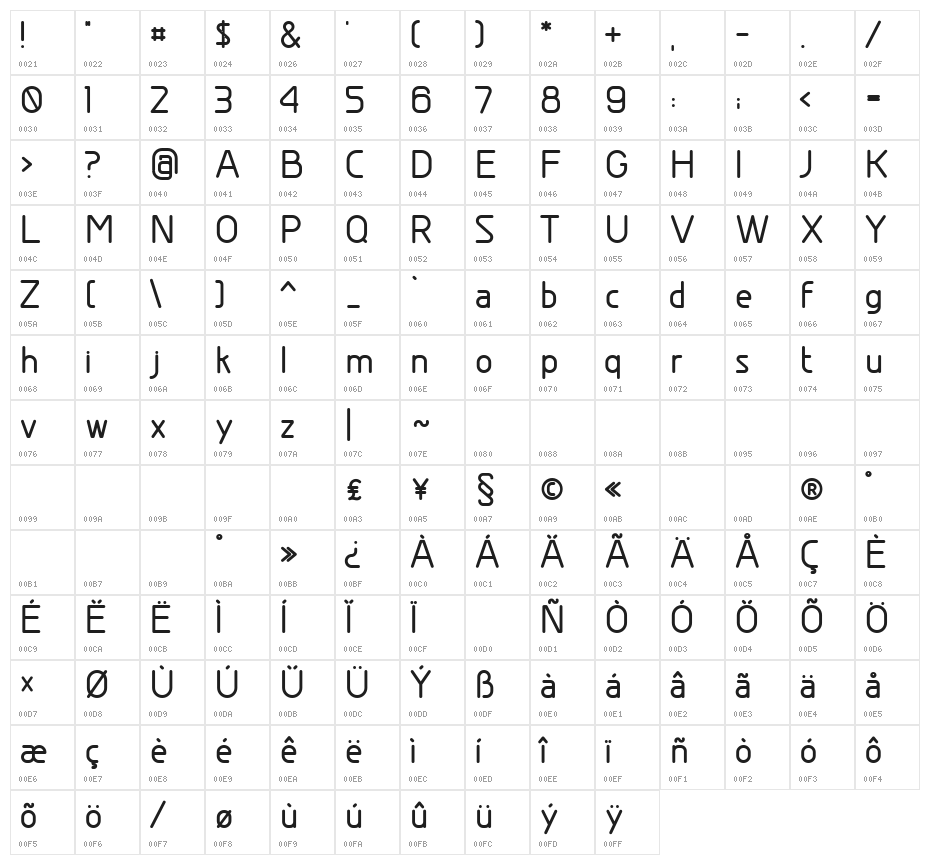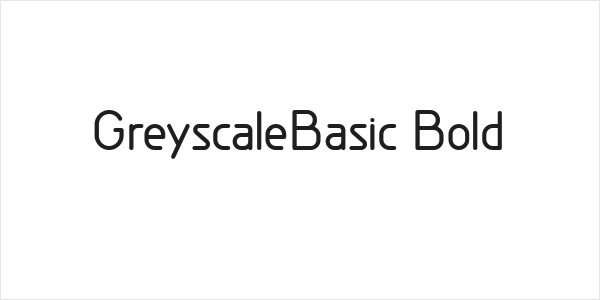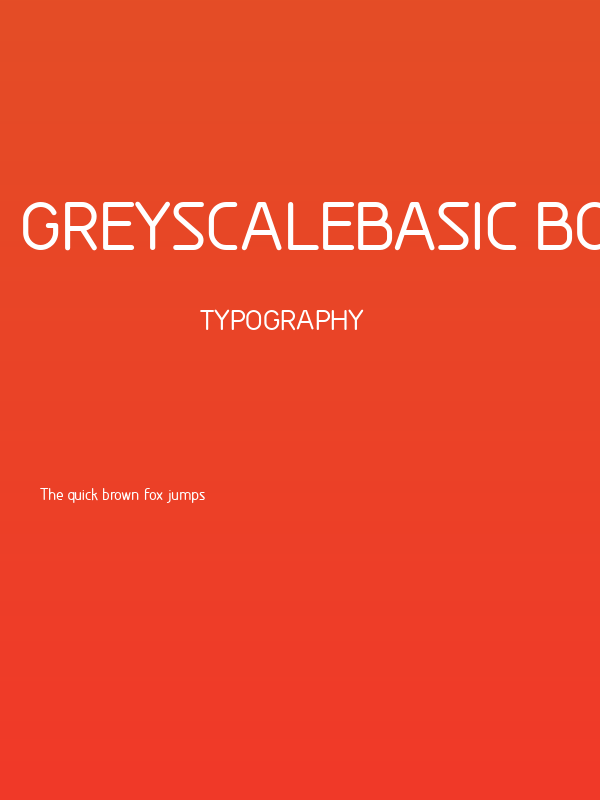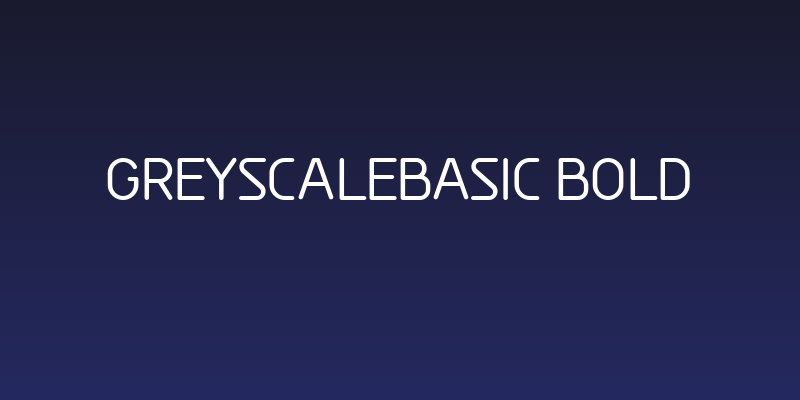
GreyscaleBasic Bold Font
GreyscaleBasic Bold Description
This font features a clean, modern sans-serif style with rounded edges that give it a friendly and approachable appearance. The characters are evenly spaced, providing a balanced and harmonious look. The bold weight enhances its readability, making it suitable for various design applications. The uniform stroke width across all characters contributes to its contemporary feel, while the rounded terminals add a touch of softness. This font is versatile, working well in both digital and print media, and is ideal for projects that require a modern and professional aesthetic.
| Use Case | Headlines, Logos, Web design |
| Proposed Projects | Ideal for branding, web design, advertising, and user interfaces. |